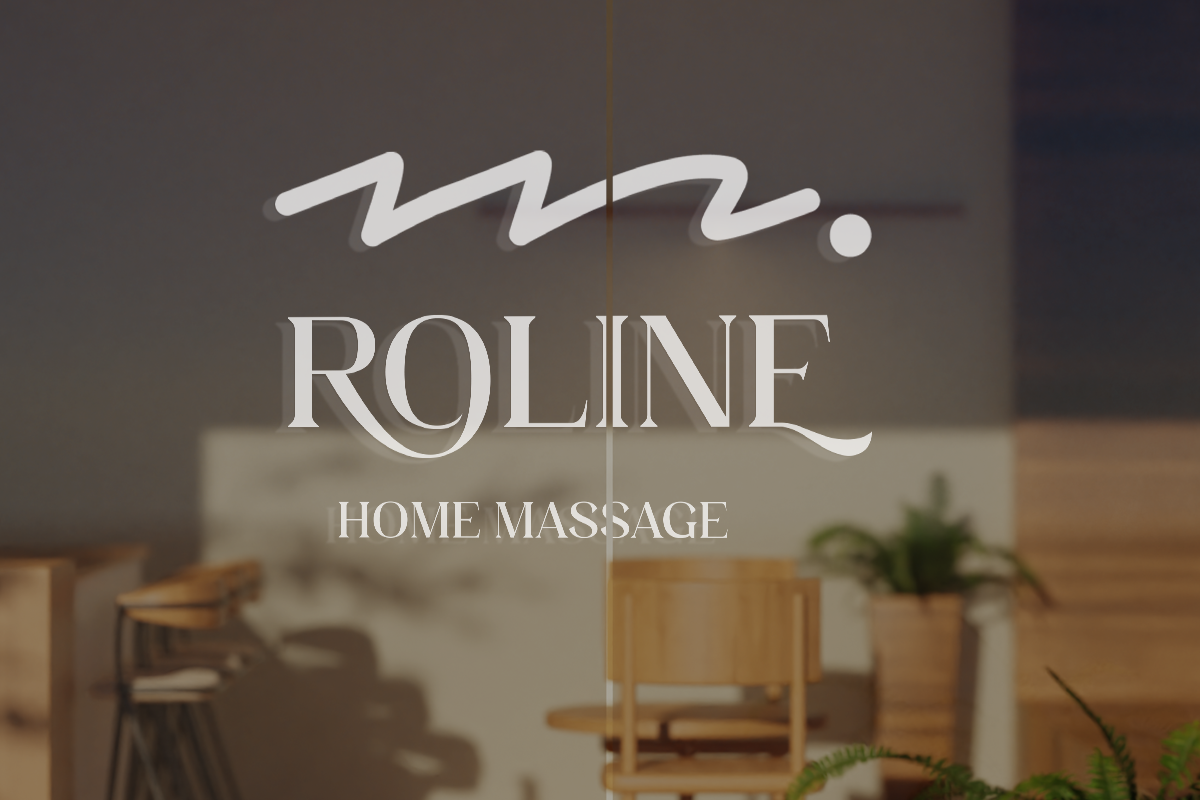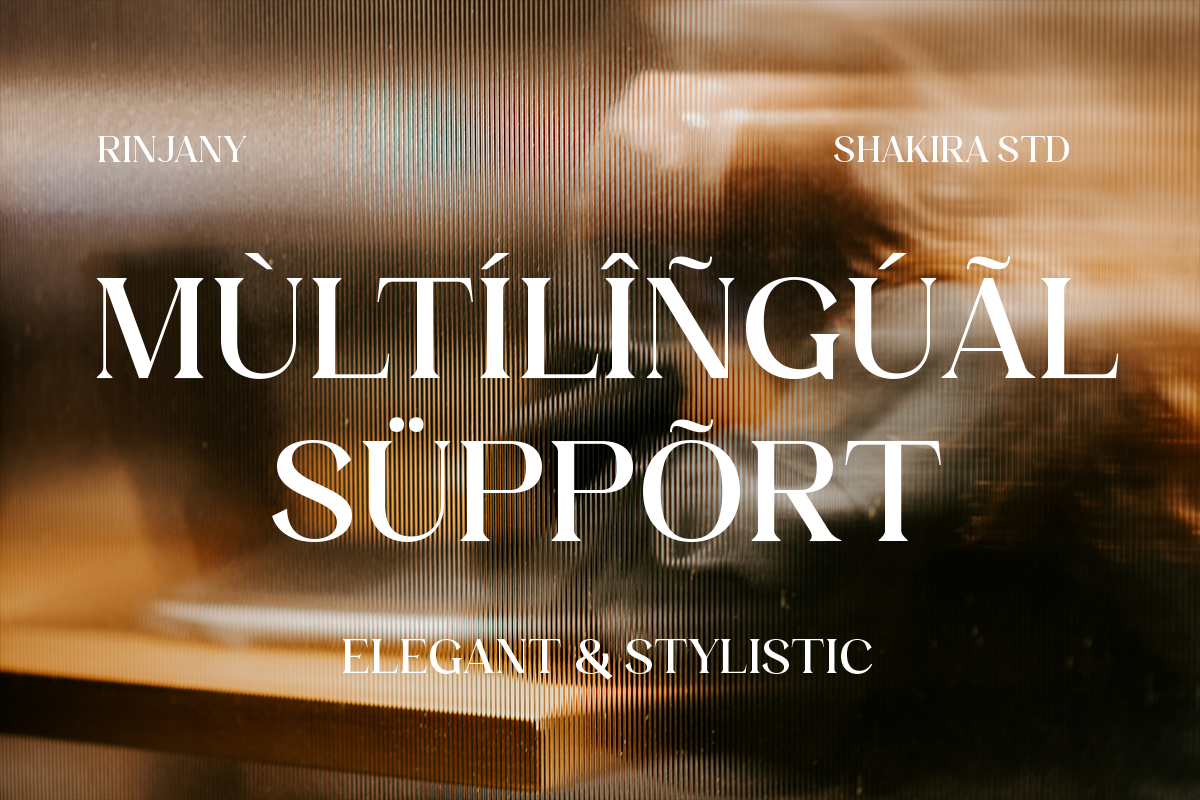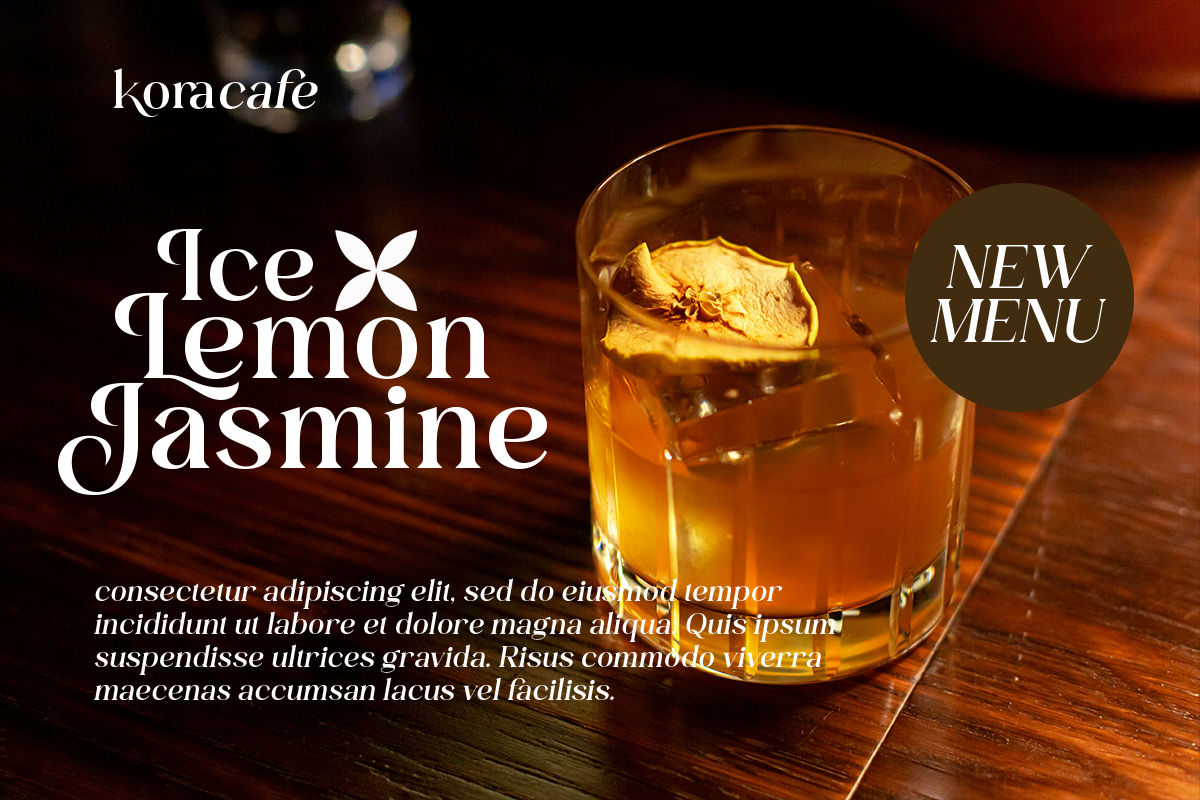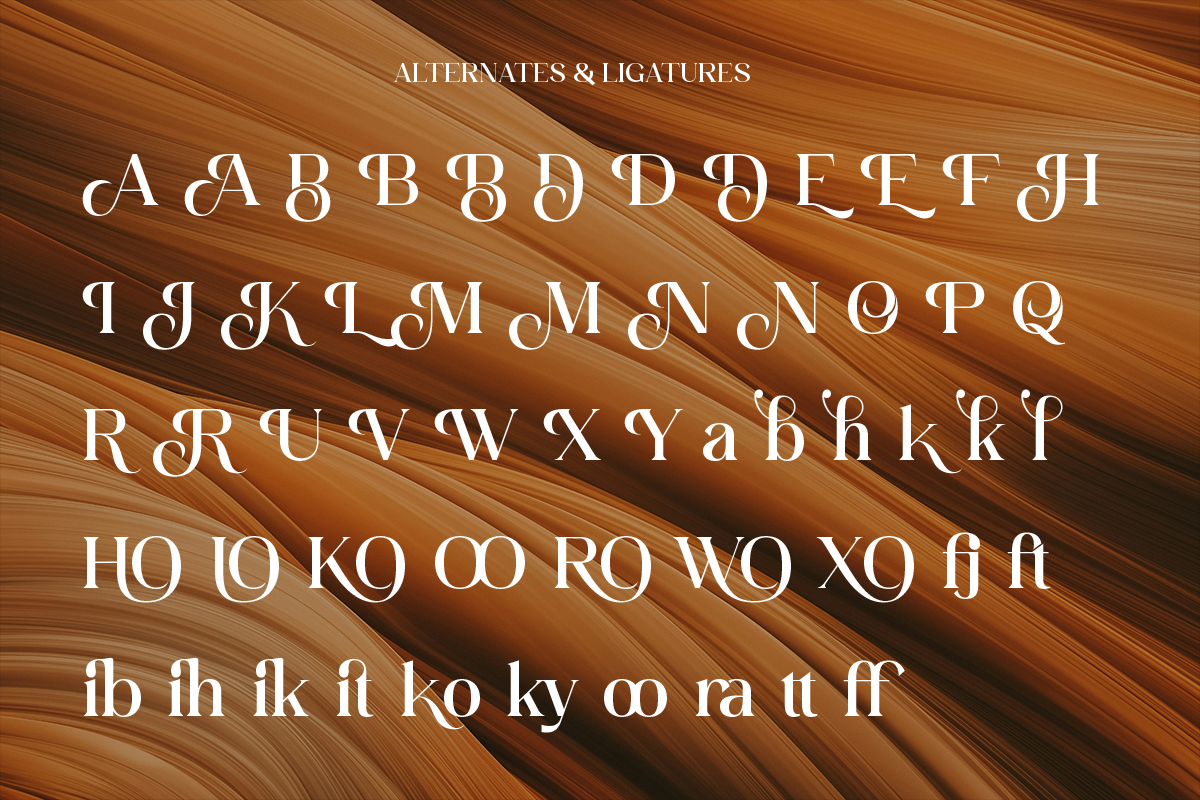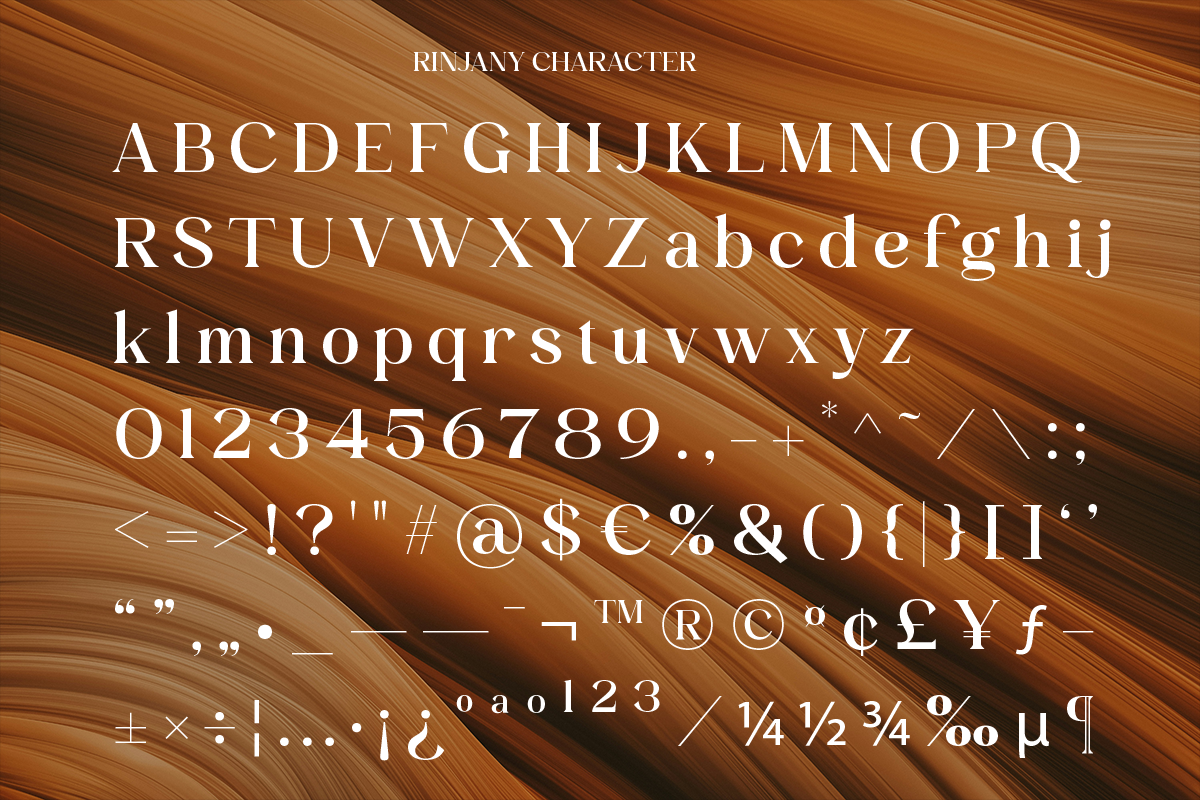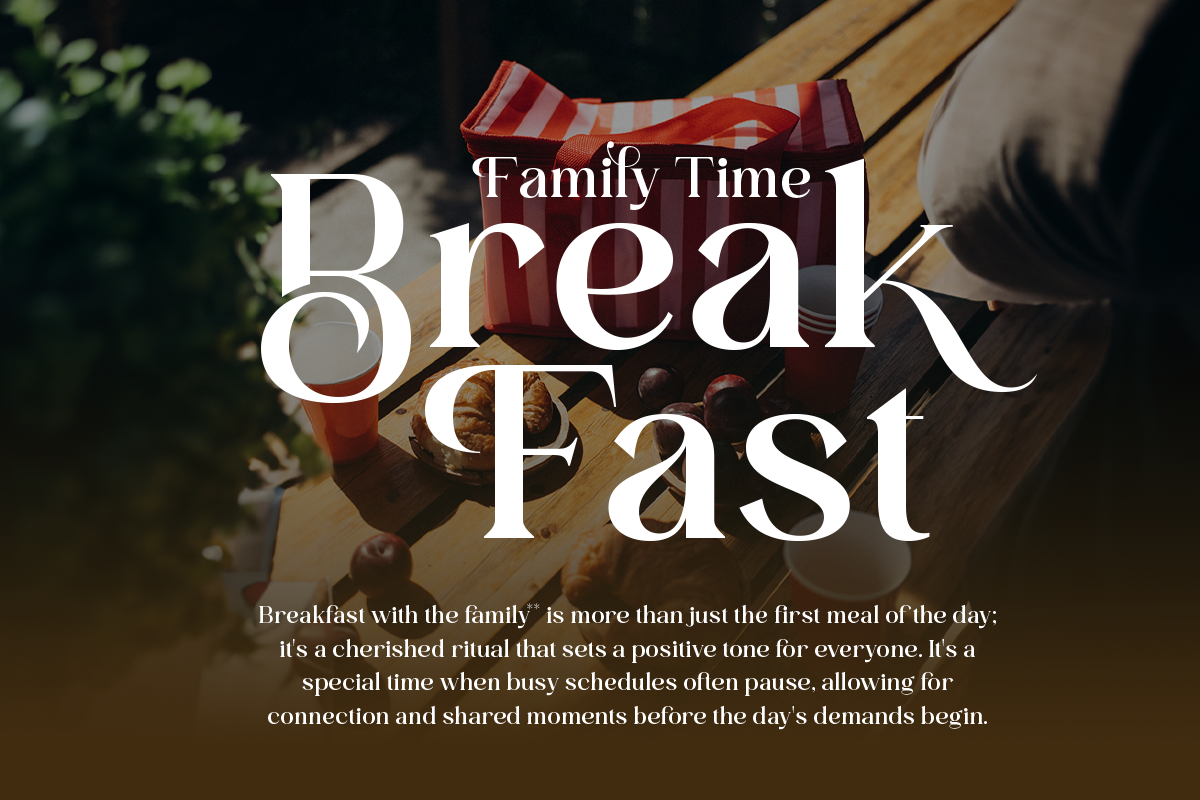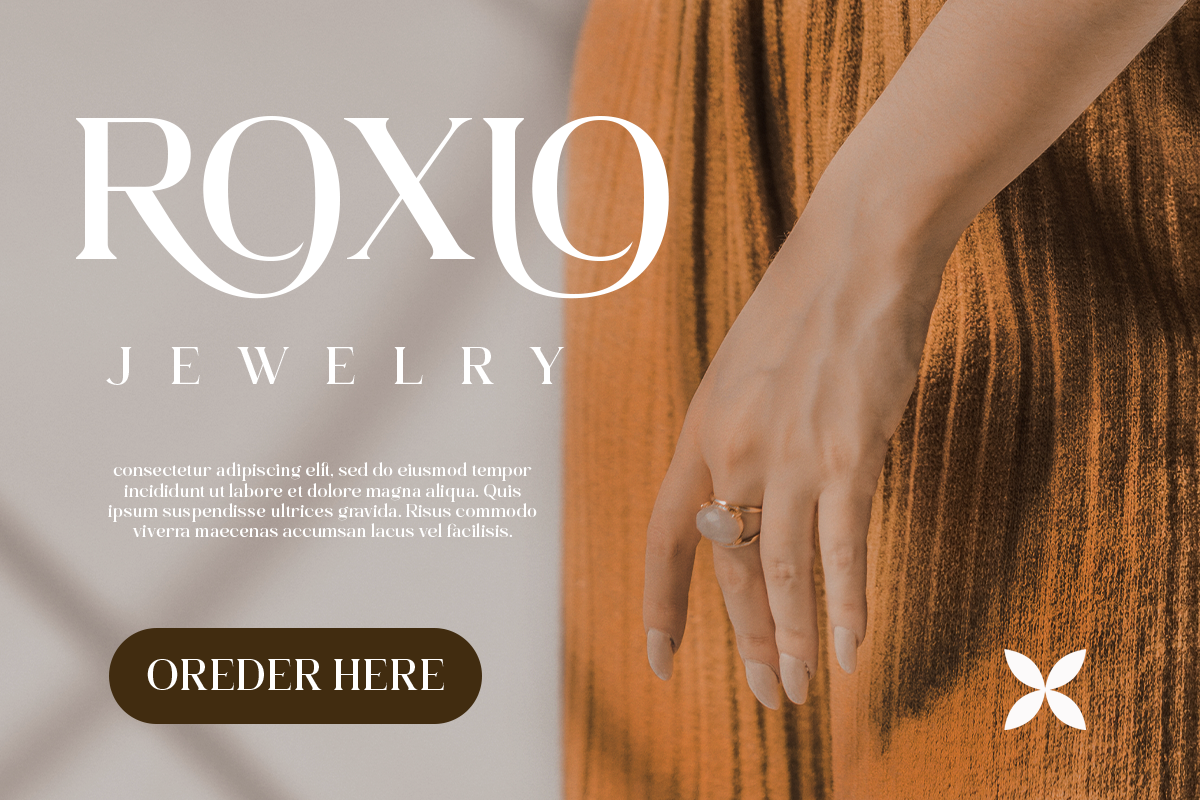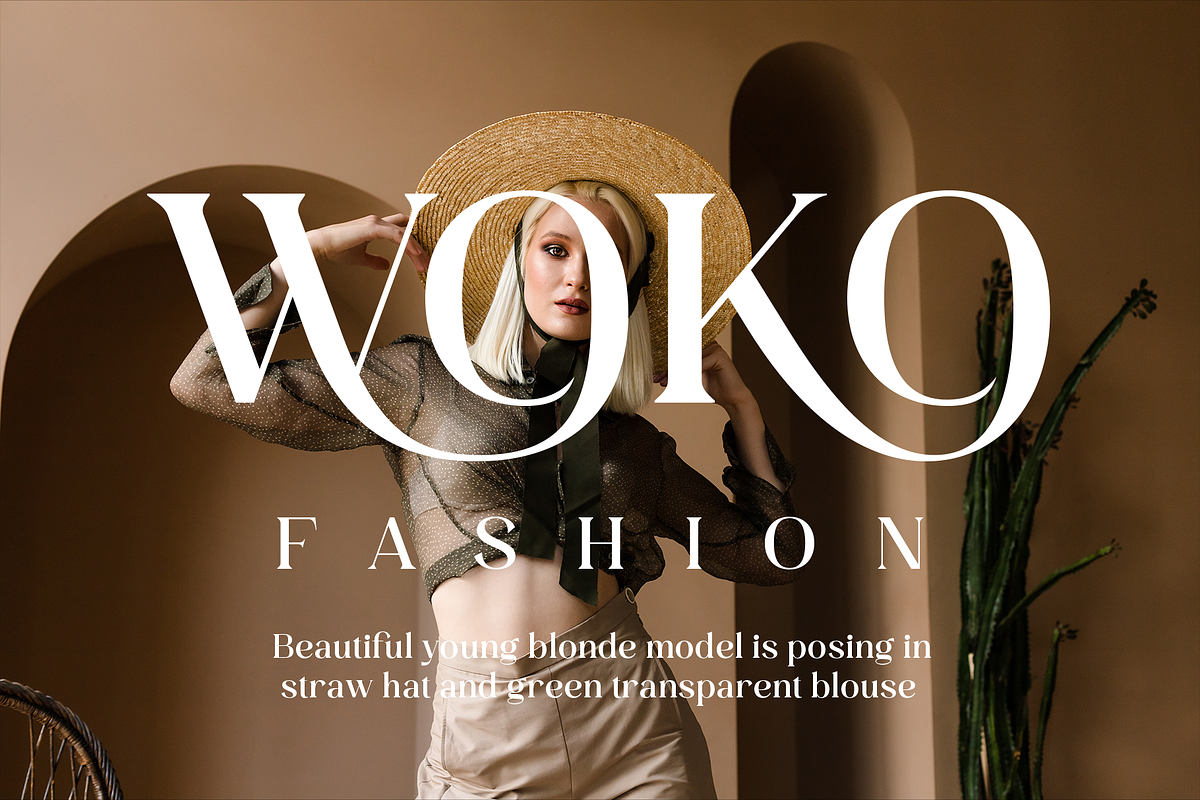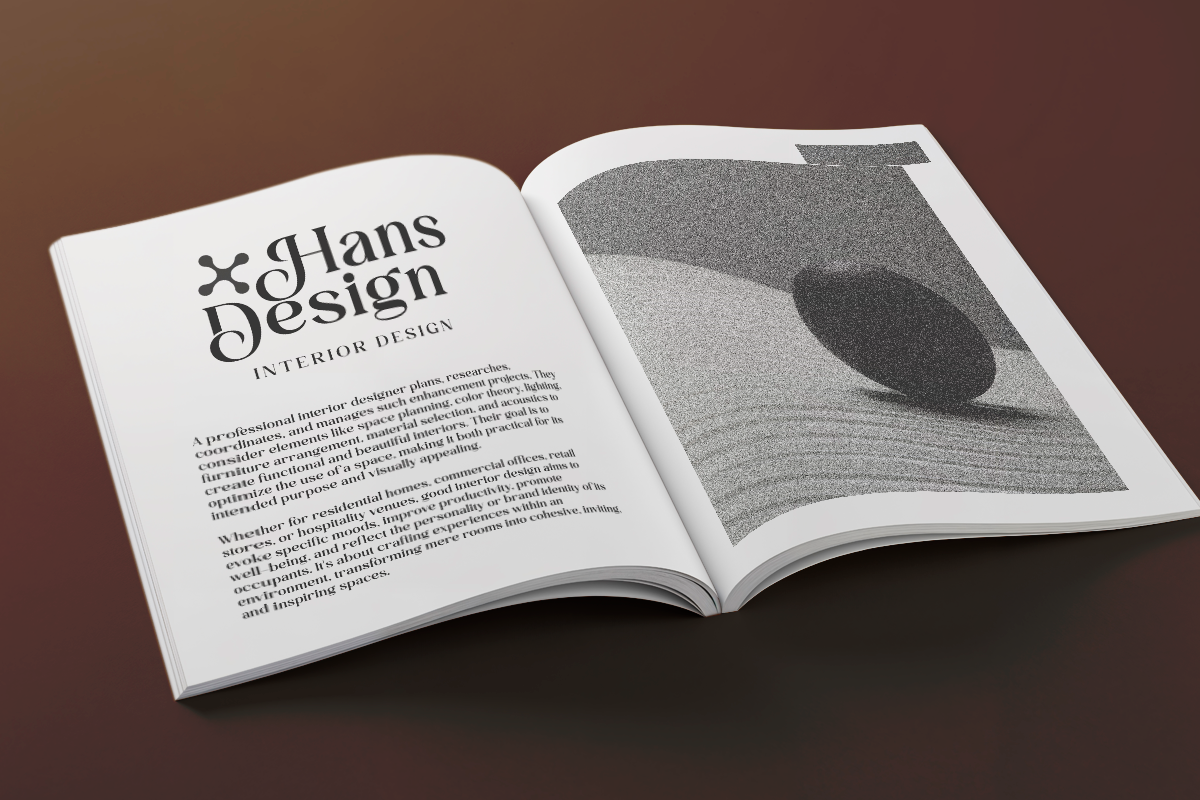
Rintik - Modern Elegant Serif
Rintik is a modern elegant serif font with smooth stylistic curves and refined proportions. It brings a sense of calm sophistication, making it perfect for fashion branding, editorial headlines, photography portfolios, and packaging design. This font captures the harmony between modern simplicity and timeless beauty.
- Regular & Italic
Perfect For: Branding, editorial layouts, logo design, magazines, photography projects, and minimalist posters.